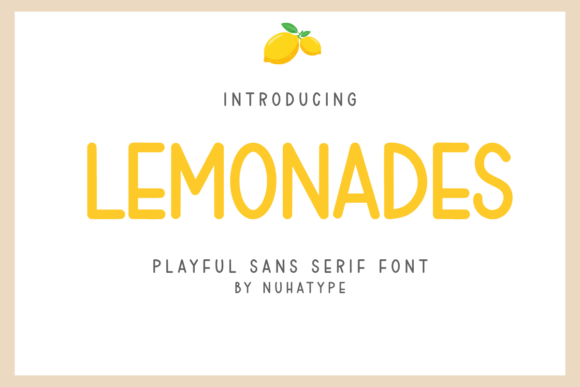
Lemonades Font for Handmade Creators
As a handmade seller and printable product creator, I’ve spent years searching for fonts that balance charm with clarity. That’s why I’m excited to share my experience with Lemonades, a font that feels like it was crafted just for creative entrepreneurs like me.
Lemonades is an elegantly minimalist, thin sans serif font that mirrors the charm of natural handwriting. Its clean lines and subtle curves give it a handcrafted feel without sacrificing readability. This font excels in bringing a simplistic allure to planners, interior KDP, journals, Cricut projects, and more. It’s the kind of typeface that feels both modern and timeless—perfect for those who want their designs to stand out while remaining approachable.
The Beauty of Minimalism in Design
Minimalist fonts like Lemonades are incredibly versatile because they let the content speak for itself. Whether you’re designing a greeting card or creating a digital printable, the simplicity of this font allows your message to shine. The thin stroke weight adds a delicate elegance that feels personal and intimate, making it ideal for small labels, tags, and invitations.
What I love most about Lemonades is how it adapts to different project types. Its lightness makes it perfect for use on small surfaces like stickers and product tags, where too much weight could overwhelm the design. At the same time, its legibility ensures that even longer text, like planner pages or wall art, remains clear and easy to read.
Where to Use Lemonades Font
Lemonades is a font that works across a wide range of creative projects. Here are some practical examples of how I’ve used it:
- Candle Labels: A simple, elegant font like Lemonades brings a touch of sophistication to candle labels. It’s especially effective when paired with soft pastel colors or rustic textures.
- Birthday Invitations: For handmade invitations, Lemonades adds a friendly, approachable vibe. It pairs well with floral borders or watercolor backgrounds.
- Farmhouse Signs: The clean, minimalist style of Lemonades is perfect for farmhouse-style signs. It looks great on wooden boards or chalkboard surfaces.
- Wedding Stationery: When designing wedding welcome boards or place cards, Lemonades offers a refined yet warm aesthetic that complements both modern and traditional themes.
- Printable Wall Art: This font is ideal for creating printable wall art. Its simplicity allows for bold color choices and minimalistic designs that still make a strong visual impact.
- Boutique Tags: For small shop owners, Lemonades is a great choice for product tags. It’s readable at small sizes and maintains a professional look.
- Seasonal Crafts: Whether it’s holiday packaging or seasonal signs, Lemonades adds a fresh, inviting touch to any project.
One of the best things about Lemonades is that it works equally well for short phrases, names, and titles as it does for longer text. Its thin strokes and flowing shapes make it suitable for decorative wording, display use, and product labels. However, I recommend using it sparingly on larger text to maintain readability.
Readability Tips for Crafters and Printers
When working with fonts like Lemonades, readability is key. Here are a few tips to ensure your designs look great in both digital and print formats:
- Test on Mockups: Always preview your designs in mockup tools before printing. This helps you see how the font will look in real-world applications.
- Consider Size: While Lemonades looks beautiful in large sizes, it can become hard to read at very small sizes. Use it for headings, labels, and decorative elements rather than body text.
- Pair Wisely: Pairing Lemonades with a bolder, more structured font can create a nice contrast. For example, pairing it with a serif font or a script font can add depth and interest to your designs.
- Use Ligatures and Swashes Sparingly: If Lemonades includes ligatures or swashes, use them to add visual flair without overwhelming the design.
By following these tips, you can ensure that your use of Lemonades enhances your product presentation while maintaining a high level of quality and appeal.
For crafters and small business owners, having access to a reliable, high-quality font like Lemonades can make a significant difference in the overall look and feel of your products. It helps establish brand consistency, improves customer recognition, and enhances the emotional appeal of your designs.
Whether you're creating handmade labels, digital printables, or custom stationery, Lemonades offers a versatile, stylish solution that fits seamlessly into your creative workflow. It’s a font that not only looks great but also supports your business goals and design vision.